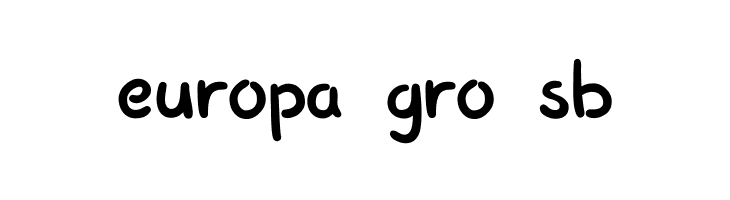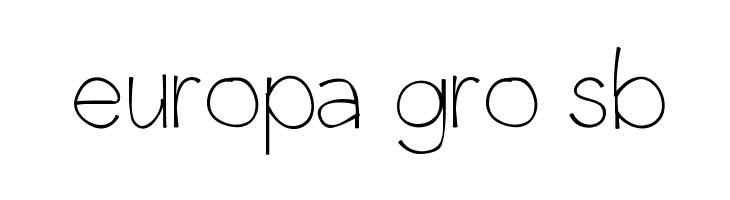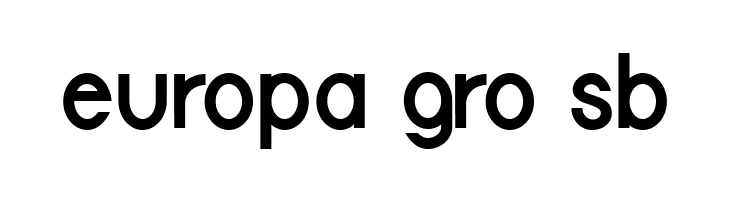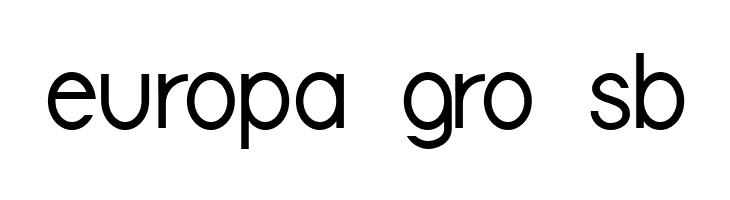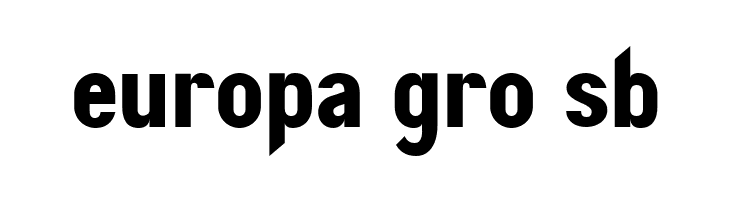
A playful, whimsical script font with fluid, dynamic letterforms.
A decorative font with St. Patrick's Day-themed illustrations.
A playful, casual handwritten font with rounded, uniform strokes.
A playful, handwritten font with a light and airy feel.
A playful font with each character featuring a cute angel motif.
A bold, modern sans-serif font with clean, geometric lines.
A modern, geometric sans-serif font with a clean and minimalistic style.
A bold, geometric typeface with strong, clean lines and a modern look.
A clean, modern sans-serif font with uniform stroke widths and geometric influence.
A bold, modern sans-serif font with a geometric structure.